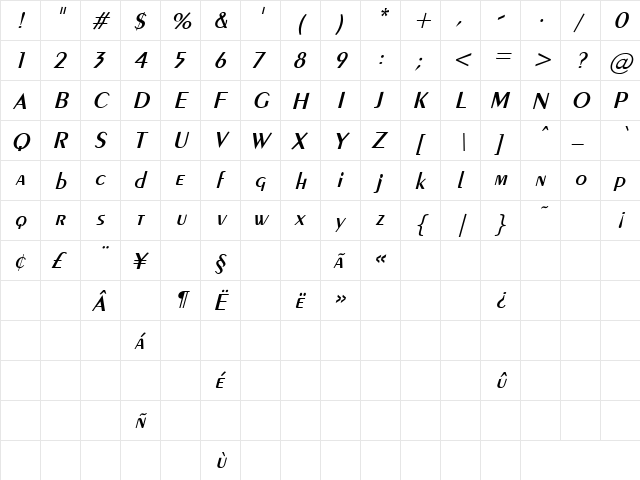
Custard Pie23 Italic Font Preview
Custard Pie23 Italic
Custard Pie23 Italic Font Details
Design Context for Custard Pie23 Typeface
Custard Pie23 takes a measured approach to typography — its balanced proportions and neutral character make it a reliable workhorse for both digital and print work. The slanted form adds forward momentum and visual energy.
Pro Tip: Try Custard Pie23 for annotation and caption copy alongside an upright companion — the contrast in angle creates a dynamic but ordered typographic system.